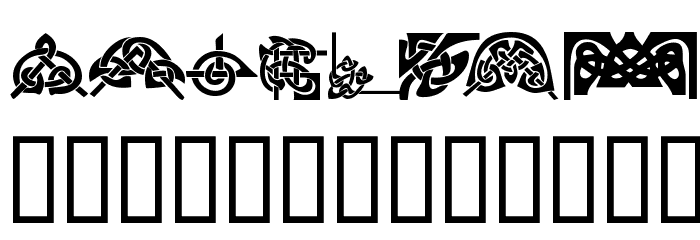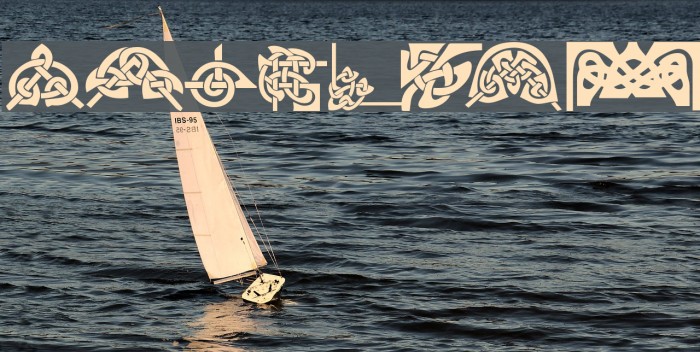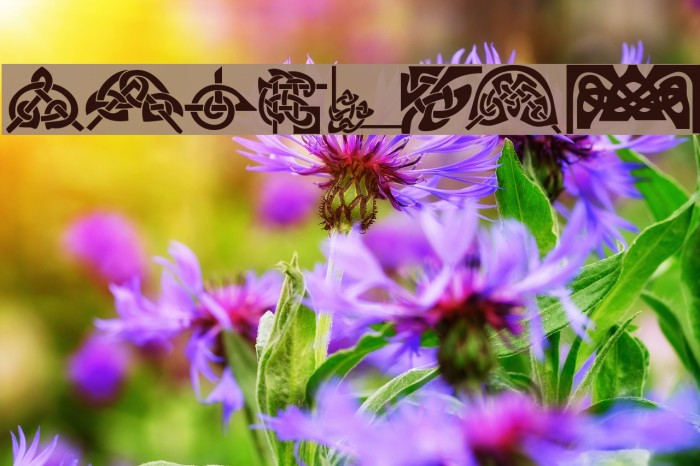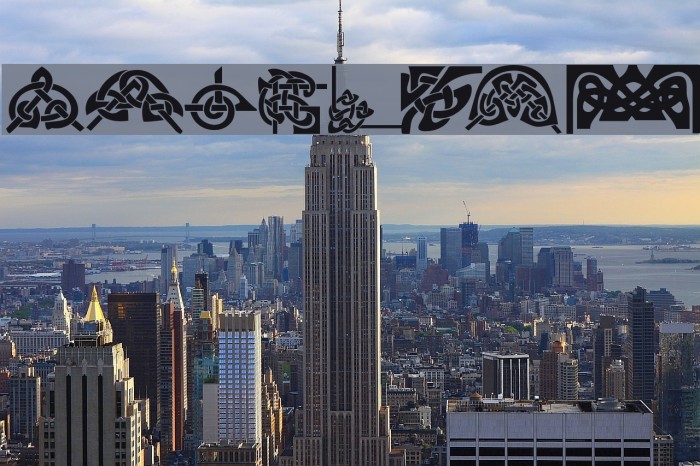
KR Keltic Four Font
This font features intricate Celtic knot designs, incorporating traditional motifs with a modern twist. Each character is adorned with elaborate interwoven patterns, creating a sense of depth and complexity. The bold and decorative style makes it stand out, while the intricate details reflect a rich cultural heritage. The font is perfect for projects that require a touch of elegance and historical significance, such as themed events, cultural publications, or artistic displays. Its unique design ensures that it captures attention and adds a distinctive flair to any text.
A decorative font with intricate Celtic knot designs.
- Proposed Projects: Ideal for themed events, cultural publications, artistic displays, and decorative purposes.
- Use Case: Logos, Headlines, Artistic displays